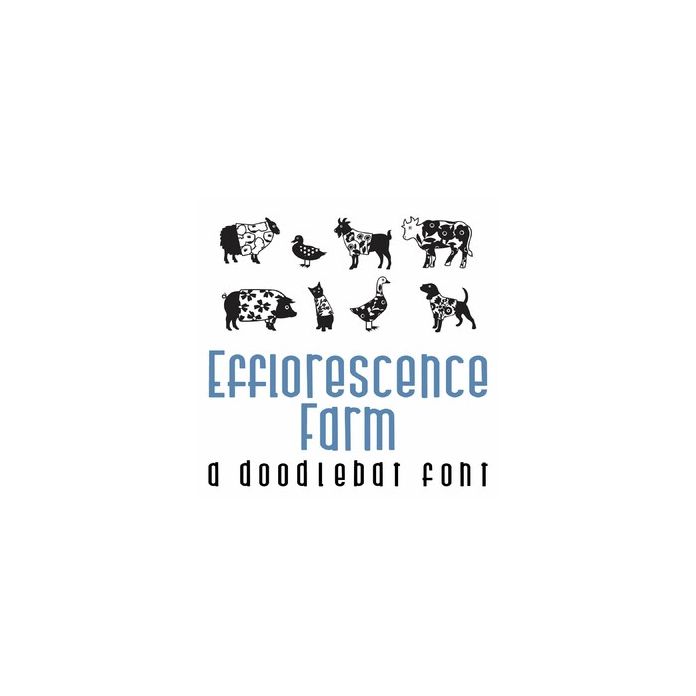
Efflorescence Farm Doodlebat Font
This fun doodlebat font features 26 floral filled farm animals. Perfect for cards, gifts, decor, crafts, scrap book pages, planner stickers and more!